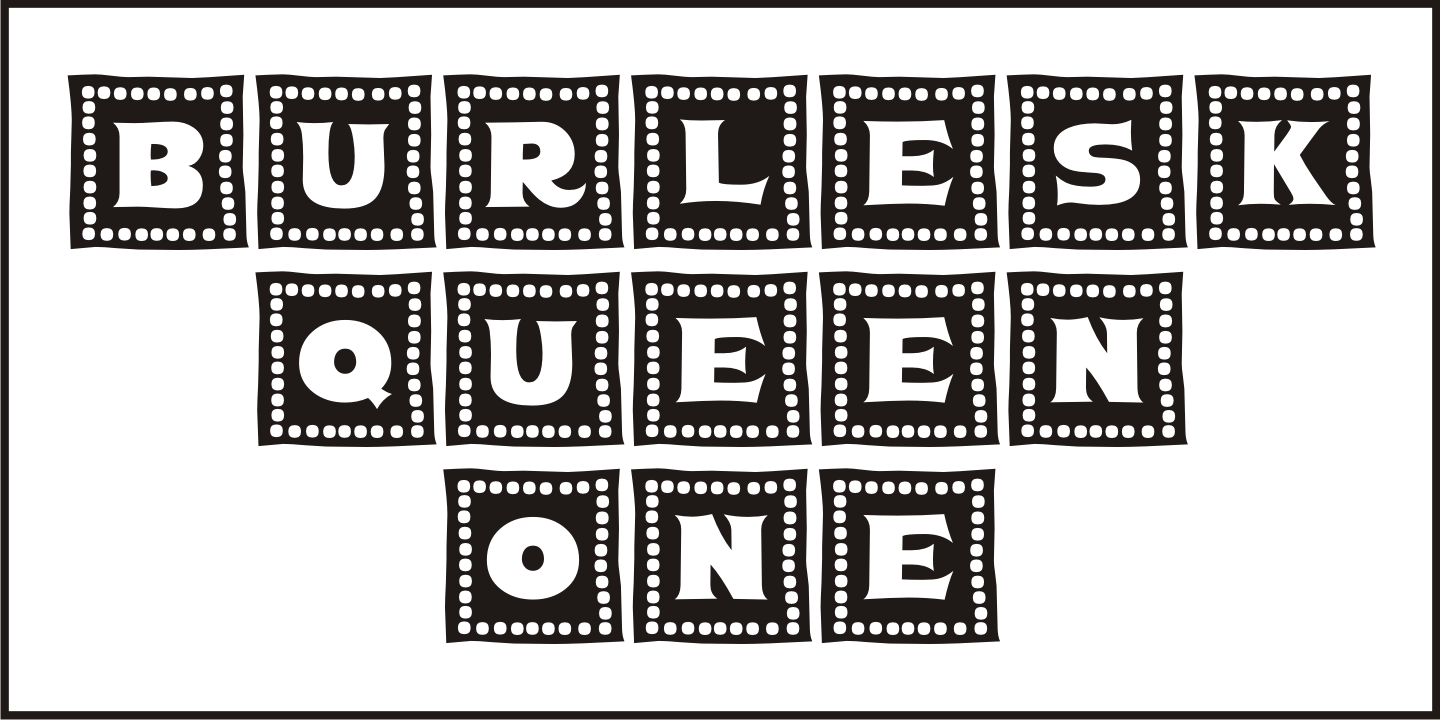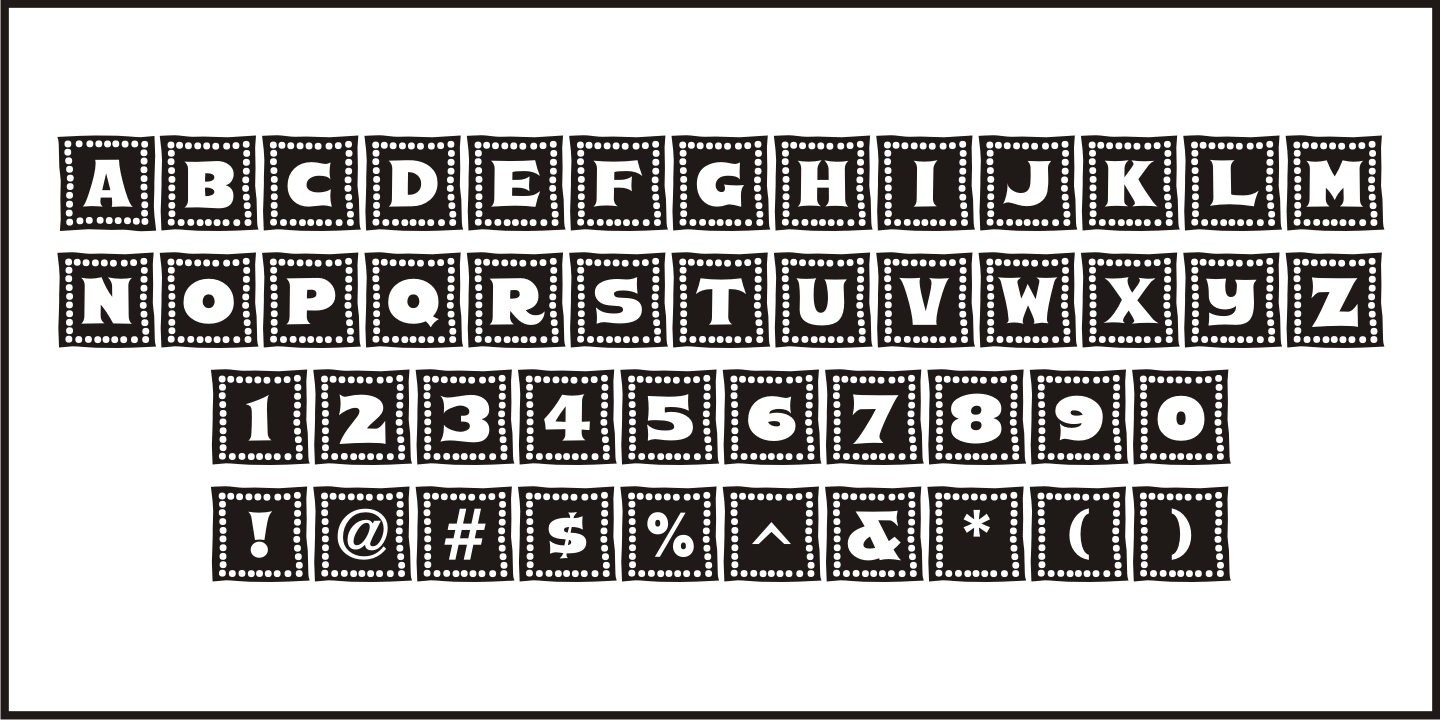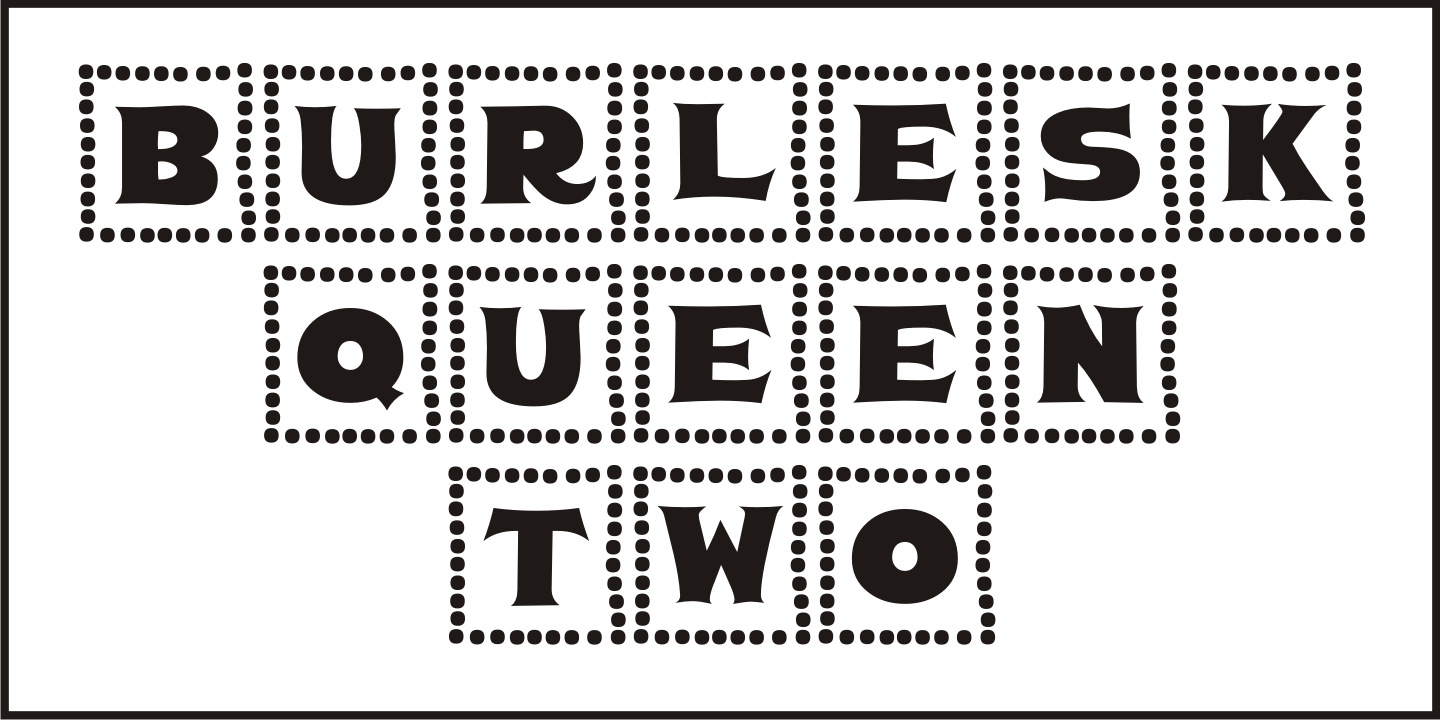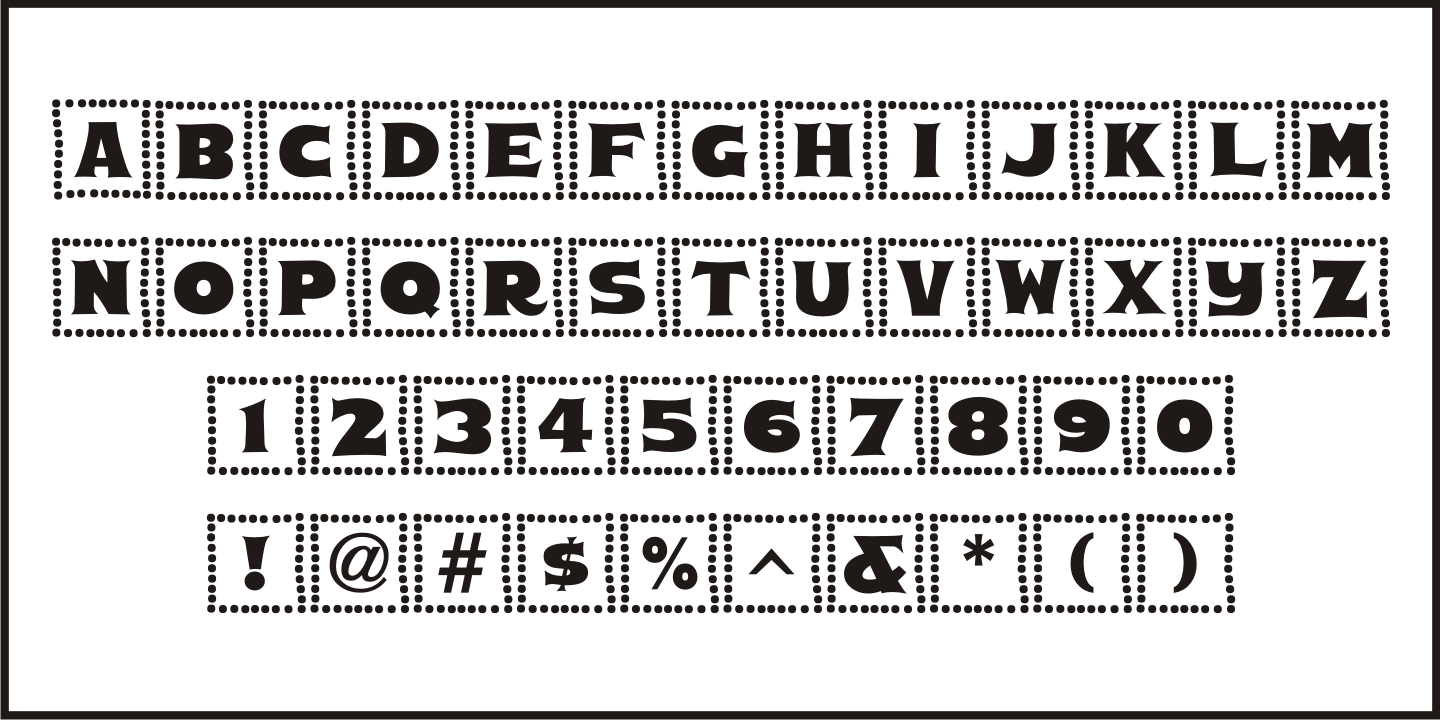
Burlesk Queen
Burlesk Queen JNL was inspired by the hand lettered title 'Gypsy” on the sheet music for "Everything's Coming Up Roses" from the movie musical based on the autobiography of famed stripper Gypsy Rose Lee.
With just four basic letters to work with [G,Y,P and S], a full character set was drawn from scratch. The design features bold spur serif characters on individual 'marquees' bordered with lights.
Burlesk Queen One JNL is the original version with white characters on black panels, while Burlesk Queen Two JNL has those panels stripped away to provide black letters on a white background.